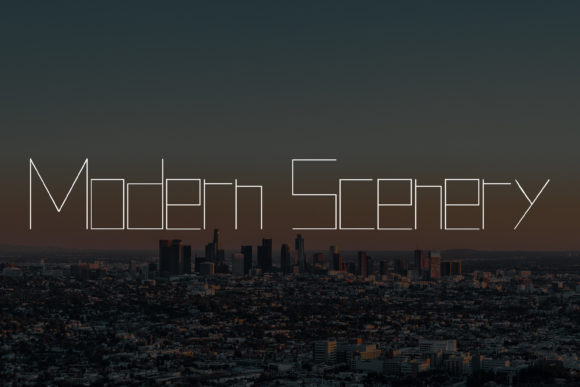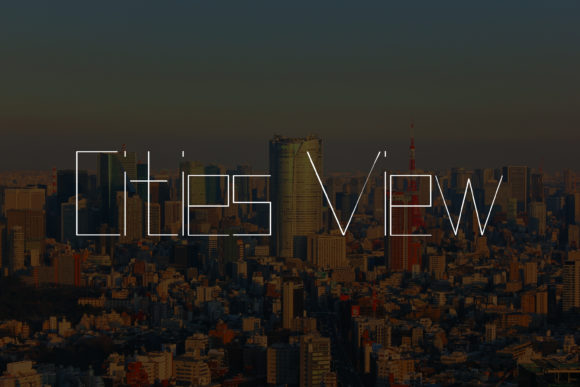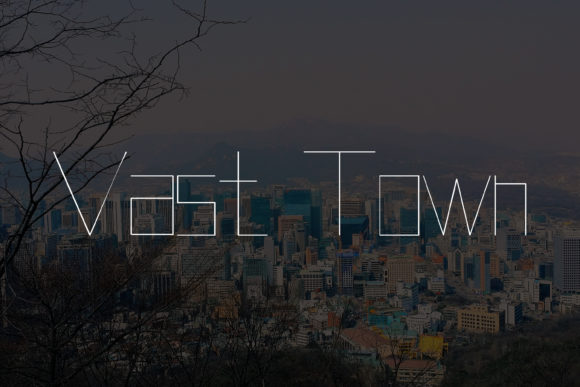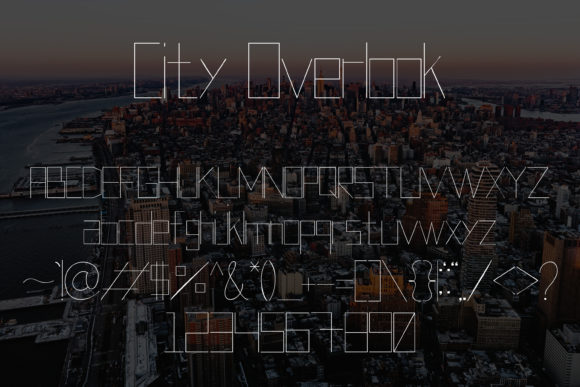
Introducing City Overlook Font: Elevate Your Designs with a Cool, Squared, Thin Lettered Display Font
Are you tired of using the same old fonts in your designs? Do you want to add a touch of modernity and sophistication to your projects? Look no further than City Overlook Font, a cool, squared, thin lettered display font that’s sure to take your designs to the next level. In this article, we’ll explore the features and benefits of City Overlook Font, and show you how to use it to create stunning designs that will leave a lasting impression.
What is City Overlook Font?
City Overlook Font is a unique and stylish display font that’s perfect for designers and crafters looking for a modern and edgy look. Its squared, thin lettered design gives it a sleek and contemporary feel that’s sure to grab attention. Whether you’re working on a logo, poster, or website, City Overlook Font is the perfect choice for adding a touch of sophistication and style.
Key Features of City Overlook Font
- Cool and Modern Design: City Overlook Font features a cool and modern design that’s perfect for designers and crafters looking for a stylish and edgy look.
- Squared and Thin Lettered: The font’s squared and thin lettered design gives it a sleek and contemporary feel that’s sure to grab attention.
- Display Font: City Overlook Font is a display font, making it perfect for use in headlines, titles, and other display text.
- Easy to Read: Despite its thin lettering, City Overlook Font is easy to read, even at small sizes.
- Versatile: City Overlook Font is versatile and can be used in a variety of design projects, from logos and posters to websites and social media graphics.
Benefits of Using City Overlook Font
So why should you choose City Overlook Font for your next design project? Here are just a few benefits of using this amazing font:
- Adds a Touch of Modernity: City Overlook Font adds a touch of modernity and sophistication to your designs, making them stand out from the crowd.
- Grabs Attention: The font’s unique and stylish design grabs attention and draws the eye, making it perfect for use in headlines and titles.
How to Use City Overlook Font in Your Designs
Using City Overlook Font in your designs is easy. Here are a few tips to get you started:
- Use it as a Display Font: City Overlook Font is perfect for use as a display font in headlines, titles, and other display text.
- Experiment with Different Sizes and Colors: Experiment with different sizes and colors to find the perfect look for your design.
- Pair it with Other Fonts: City Overlook Font pairs well with other fonts, so don’t be afraid to experiment with different combinations.
| Font Name | City Overlook Font |
| Author | scriptstrategy |
In conclusion, City Overlook Font is a cool, squared, thin lettered display font that’s perfect for designers and crafters looking for a modern and edgy look. Its unique and stylish design makes it perfect for use in a variety of design projects, from logos and posters to websites and social media graphics. With its ease of use, compatibility with a range of design software, and versatility, City Overlook Font is a must-have font for any designer or crafter looking to elevate their designs to the next level.